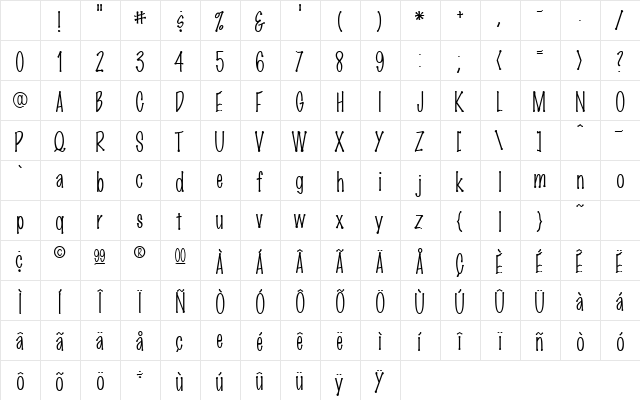
Complete Marker FinePoint glyph index. Displaying only characters natively supported by Marker FinePoint font.
Marker is a composed and adaptable typeface that performs quietly and consistently across a wide range of design contexts.